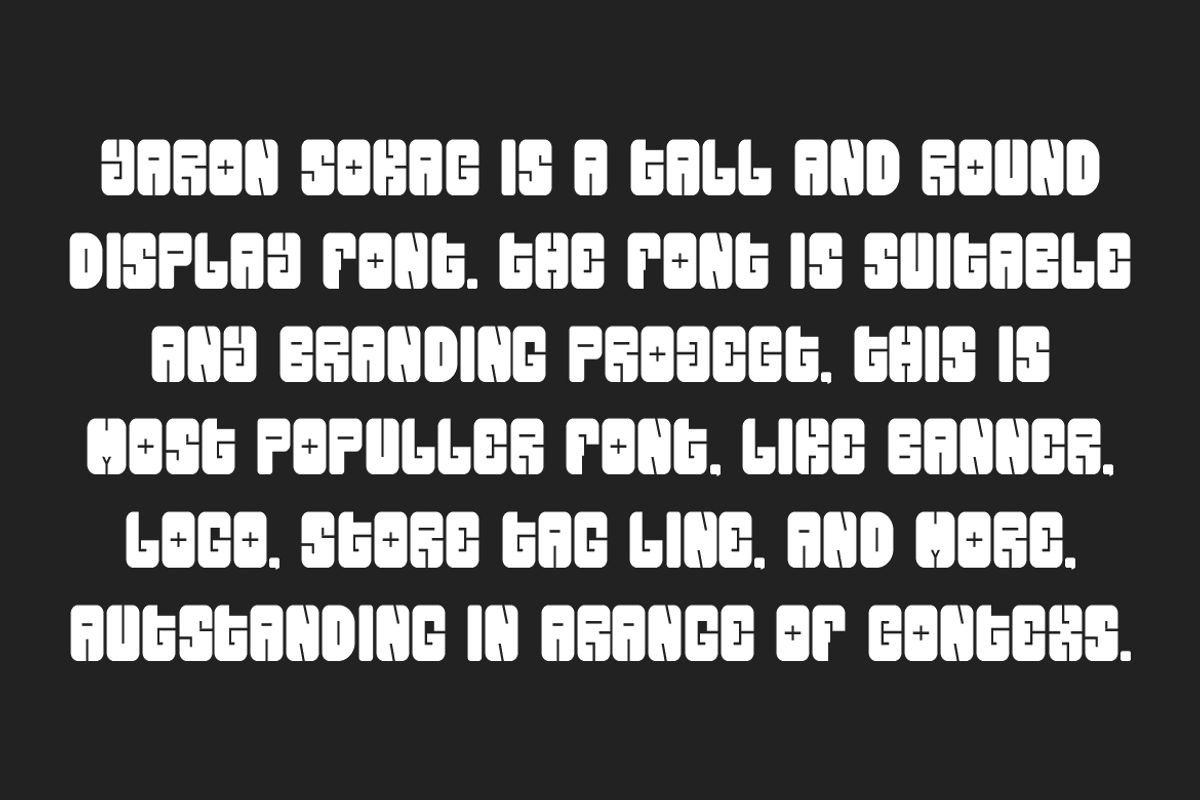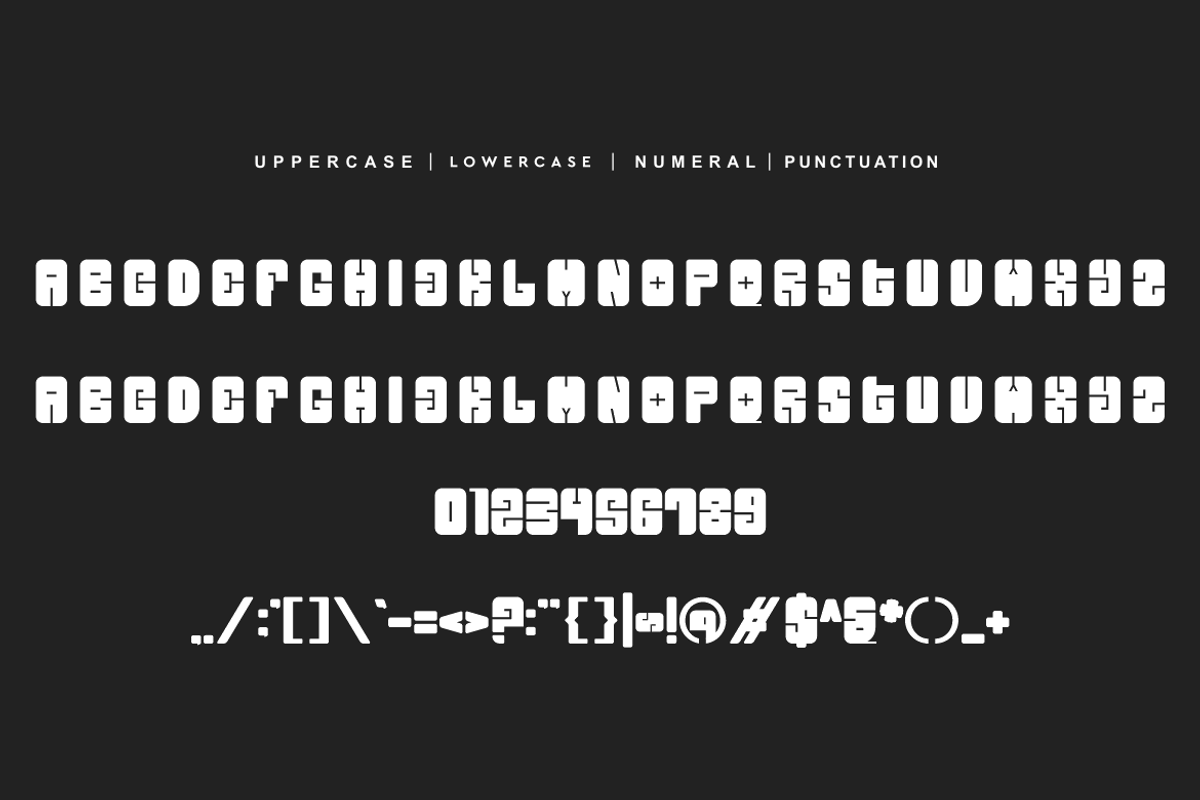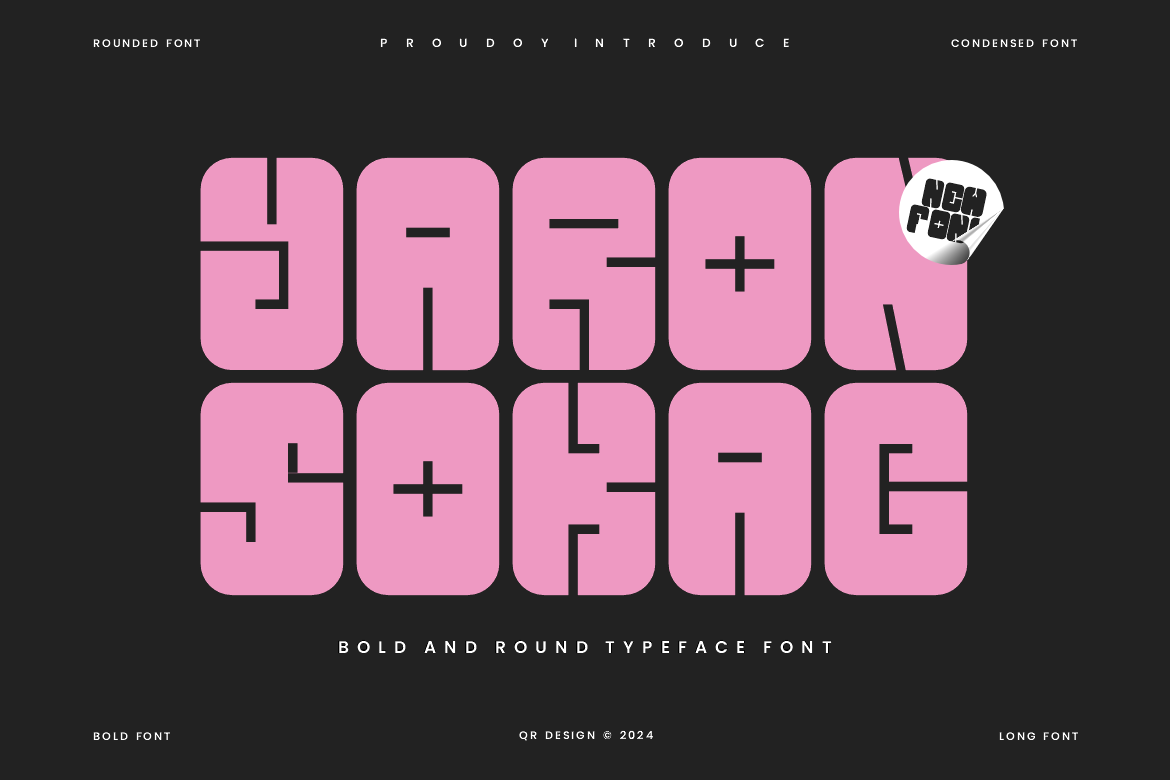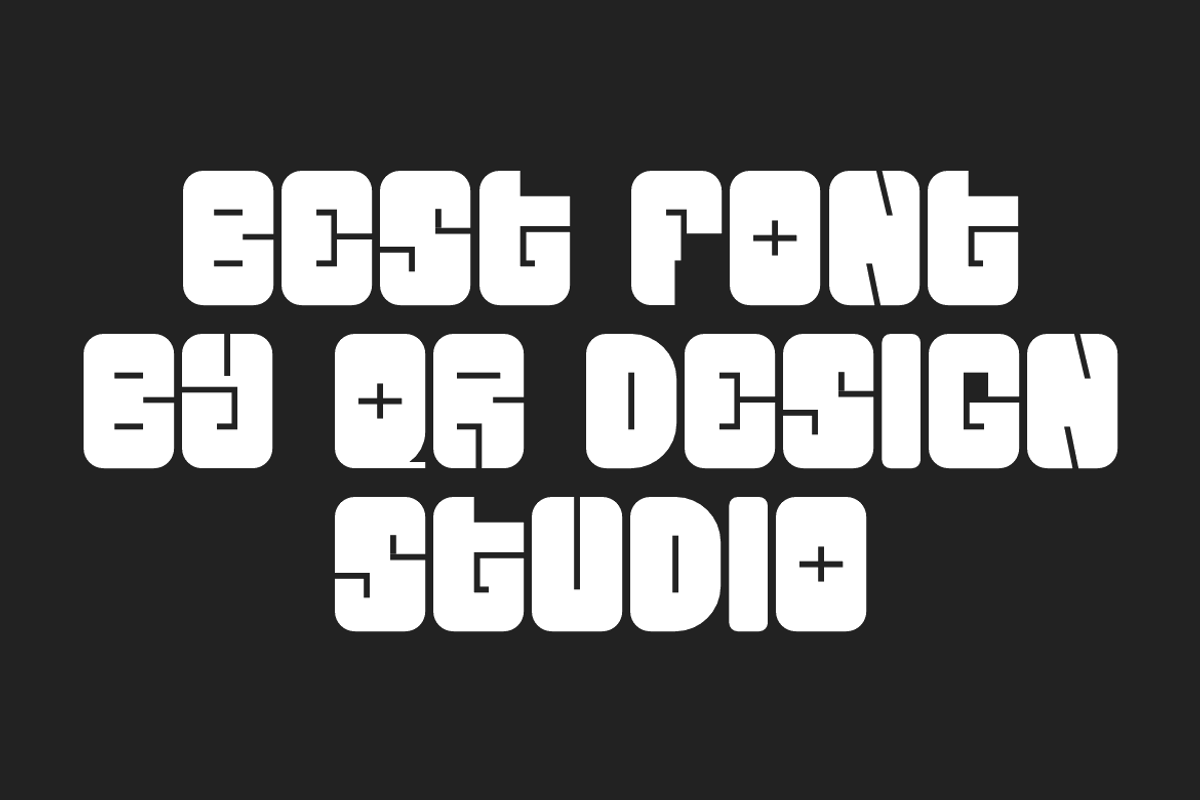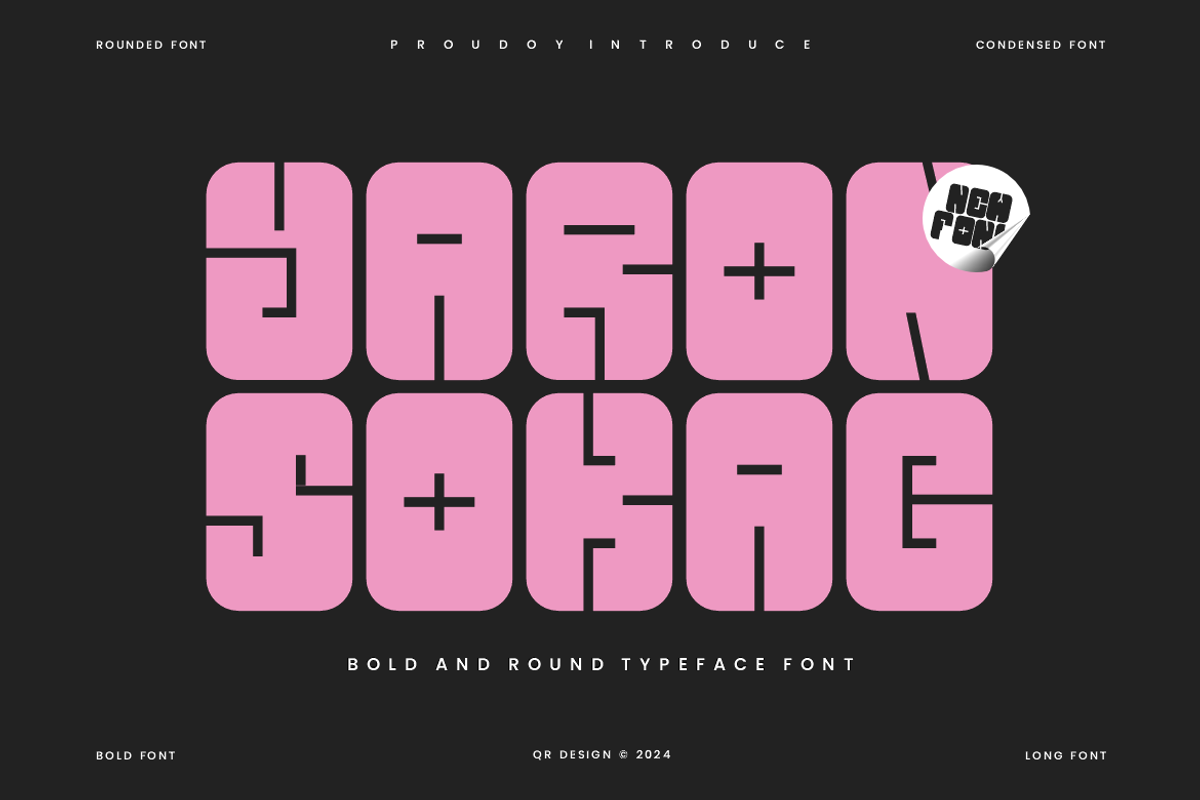
Yaron Sokac - Groovy & Funky Font
Yaron Sokac - Groovy & Funky Font is a bold and authentic display font. The font is suitable for any branding project like poster, logo, sport, and many more. Outstanding in a wide range of contexts.